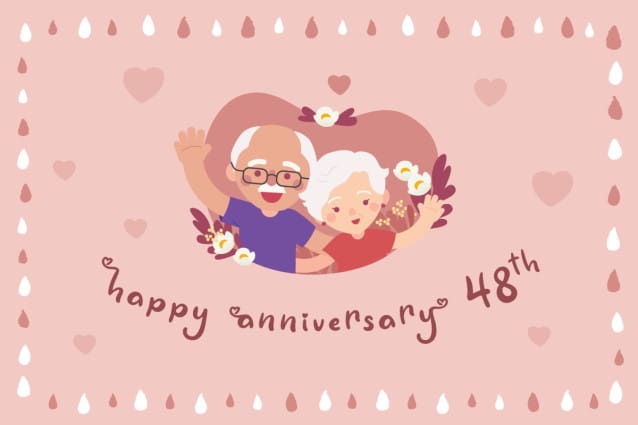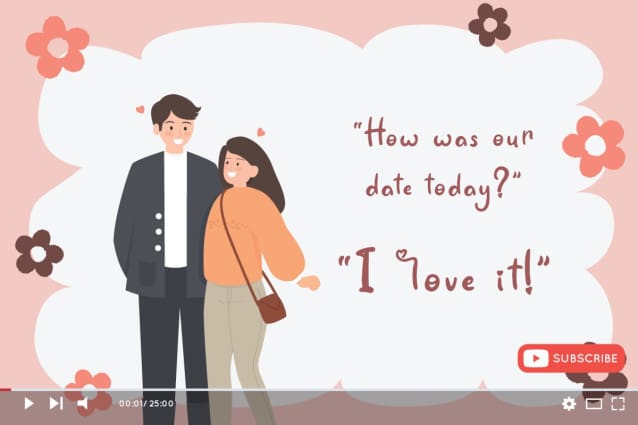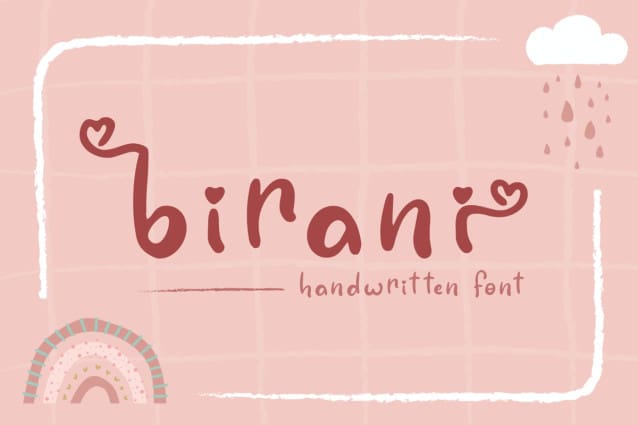
Birani Font
Birani Font is lovely script font with swash on beginning & ending word. This font perfect for valentine & wedding theme design. Combine it with Birani beginning, ending swash & ligatures to make perfect design for yor projects.
Birani perfect for valentine promotion, wedding invitation, branding, logo, invitation, stationery, social media post, product packaging, merchandise, blog design, game titles, cute style design, Book/Cover Title and more.